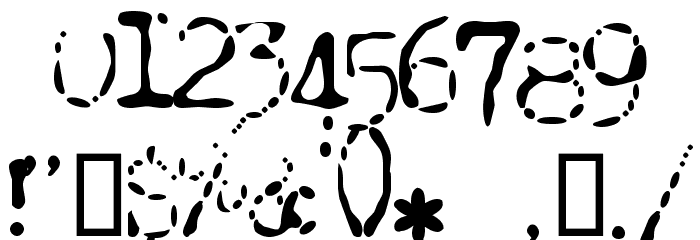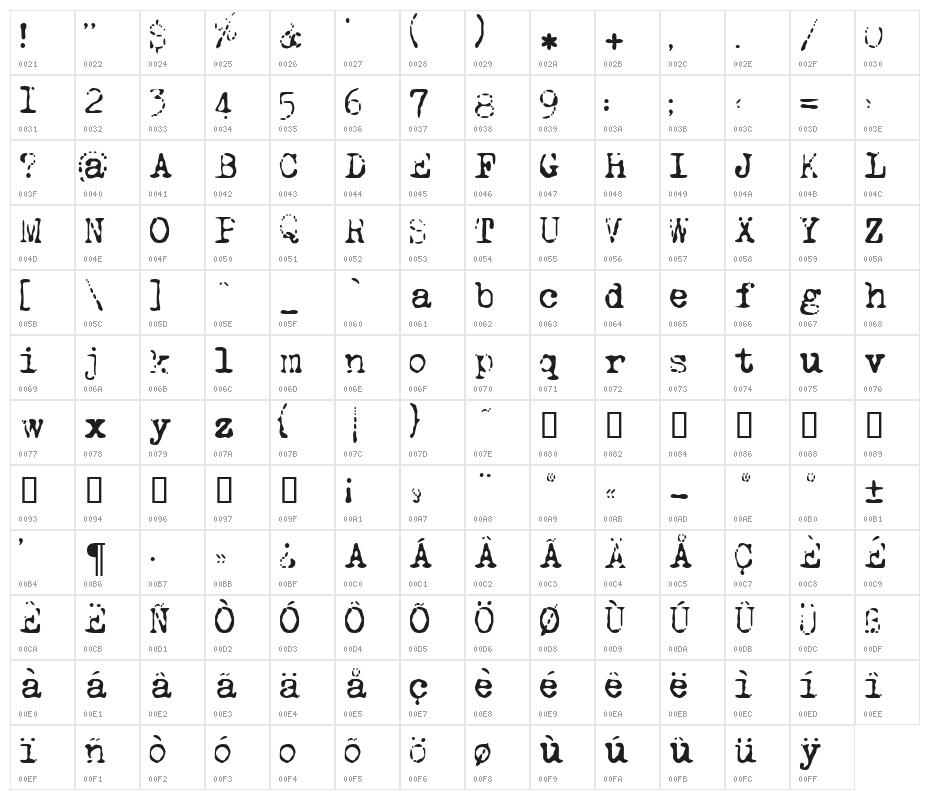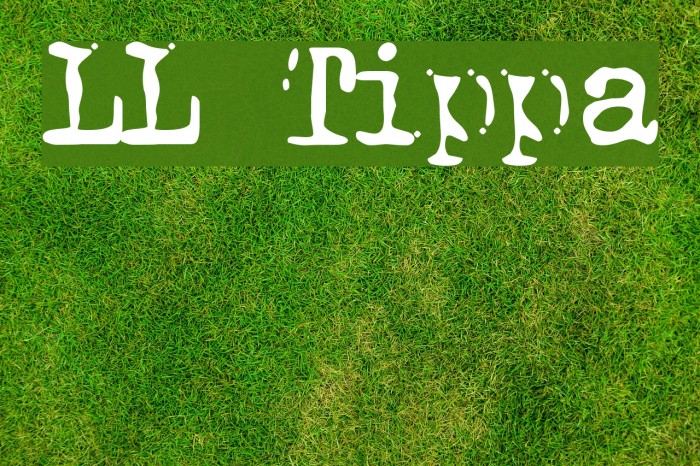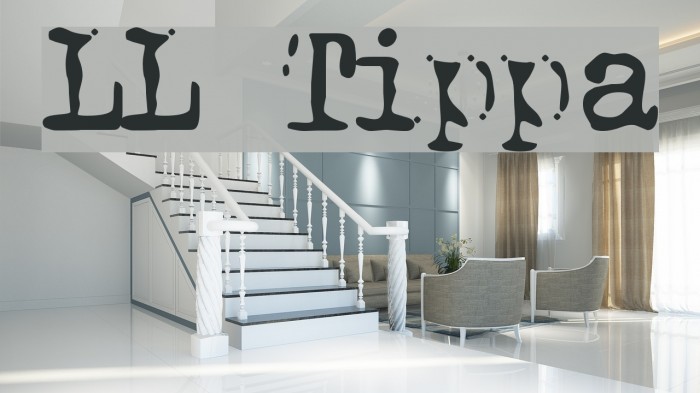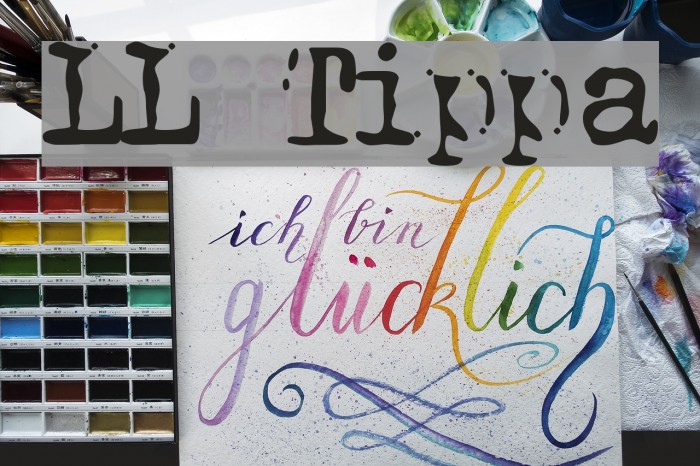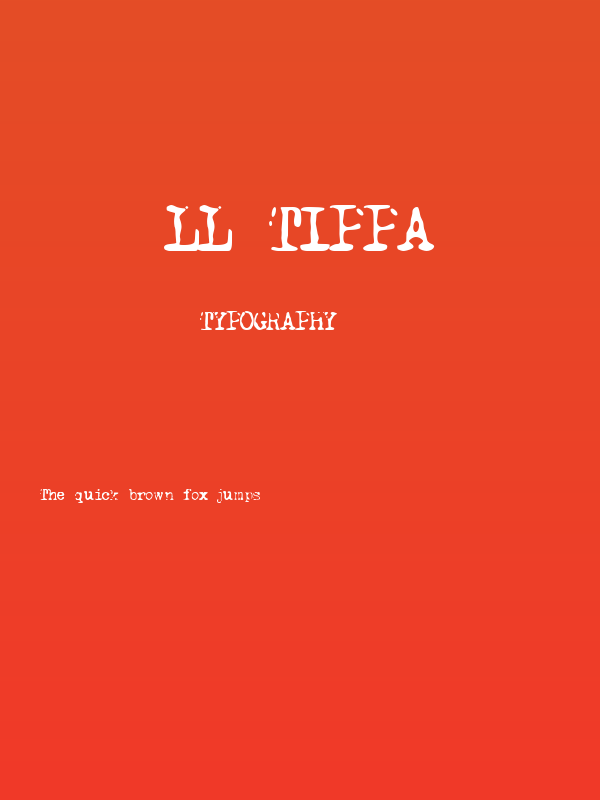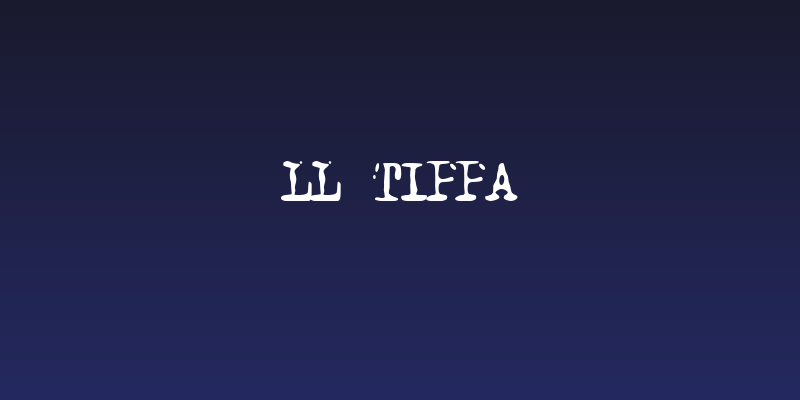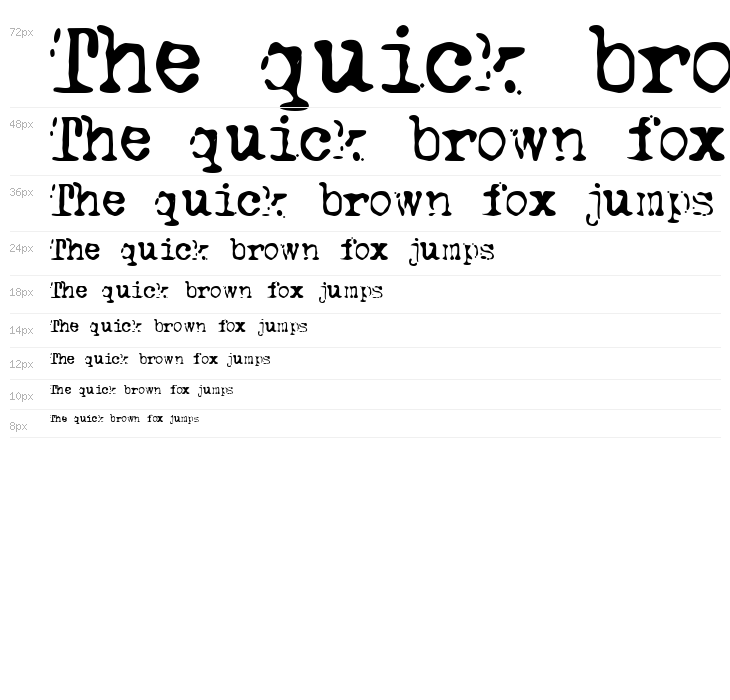
LL Tippa Font
LL Tippa Description
This font features a unique and artistic design with a distressed, stencil-like appearance. Each character is crafted with irregular edges and varying thickness, creating a dynamic and eye-catching look. The letters and numbers have a playful, almost chaotic style, with some parts appearing as if they are fading or incomplete. This gives the font a vintage, grunge aesthetic that stands out in any design. The special characters maintain this theme, adding to the overall cohesive yet unconventional style.